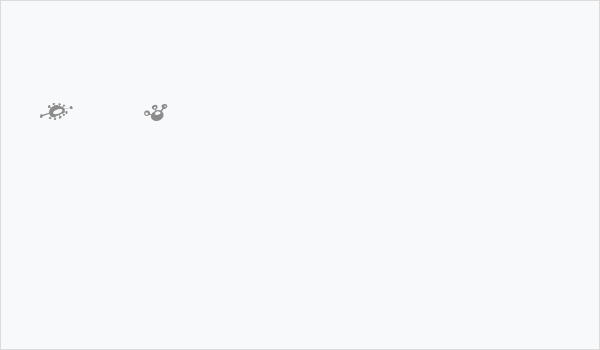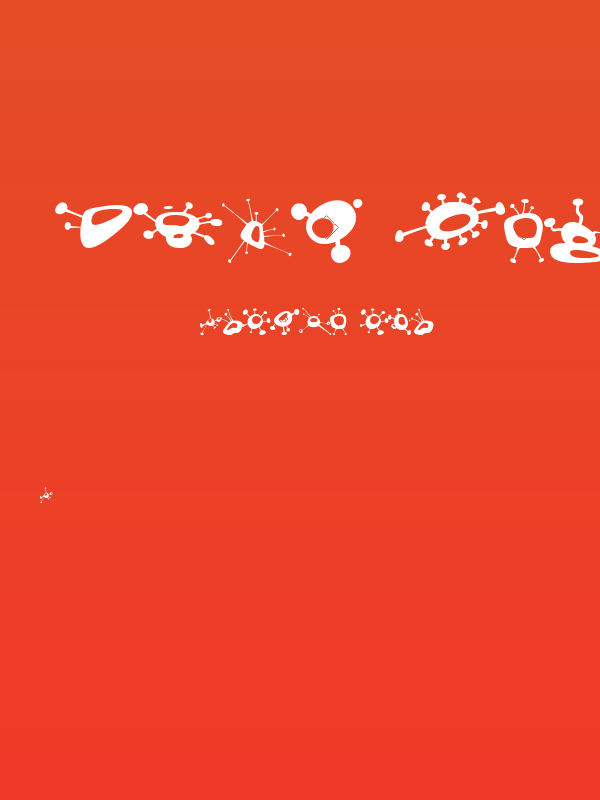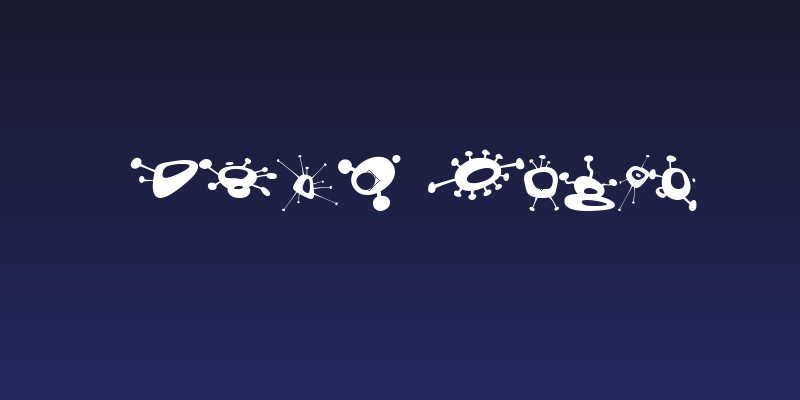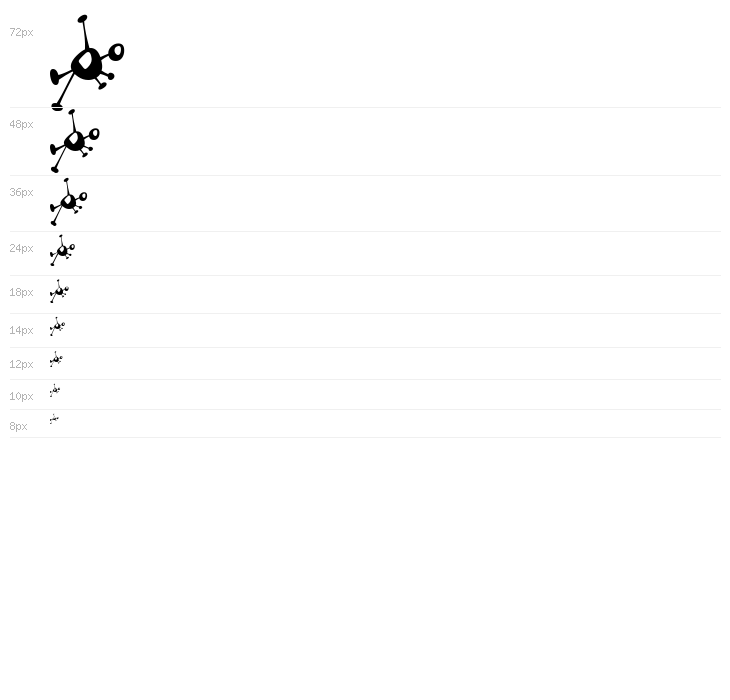
alien crush Font
alien crush Description
This font features a highly decorative and abstract design, reminiscent of alien or molecular structures. Each character is composed of circular and oval shapes connected by thin lines, resembling atomic models or extraterrestrial symbols. The unique and playful style makes it stand out, with each letter and number having its own distinct form while maintaining a cohesive theme. The font's whimsical nature and intricate details make it suitable for creative and unconventional projects.
what it the a say?
Proposed ProjectsIdeal for sci-fi themed posters, creative branding, unique invitations, and artistic projects that require a futuristic or otherworldly feel.